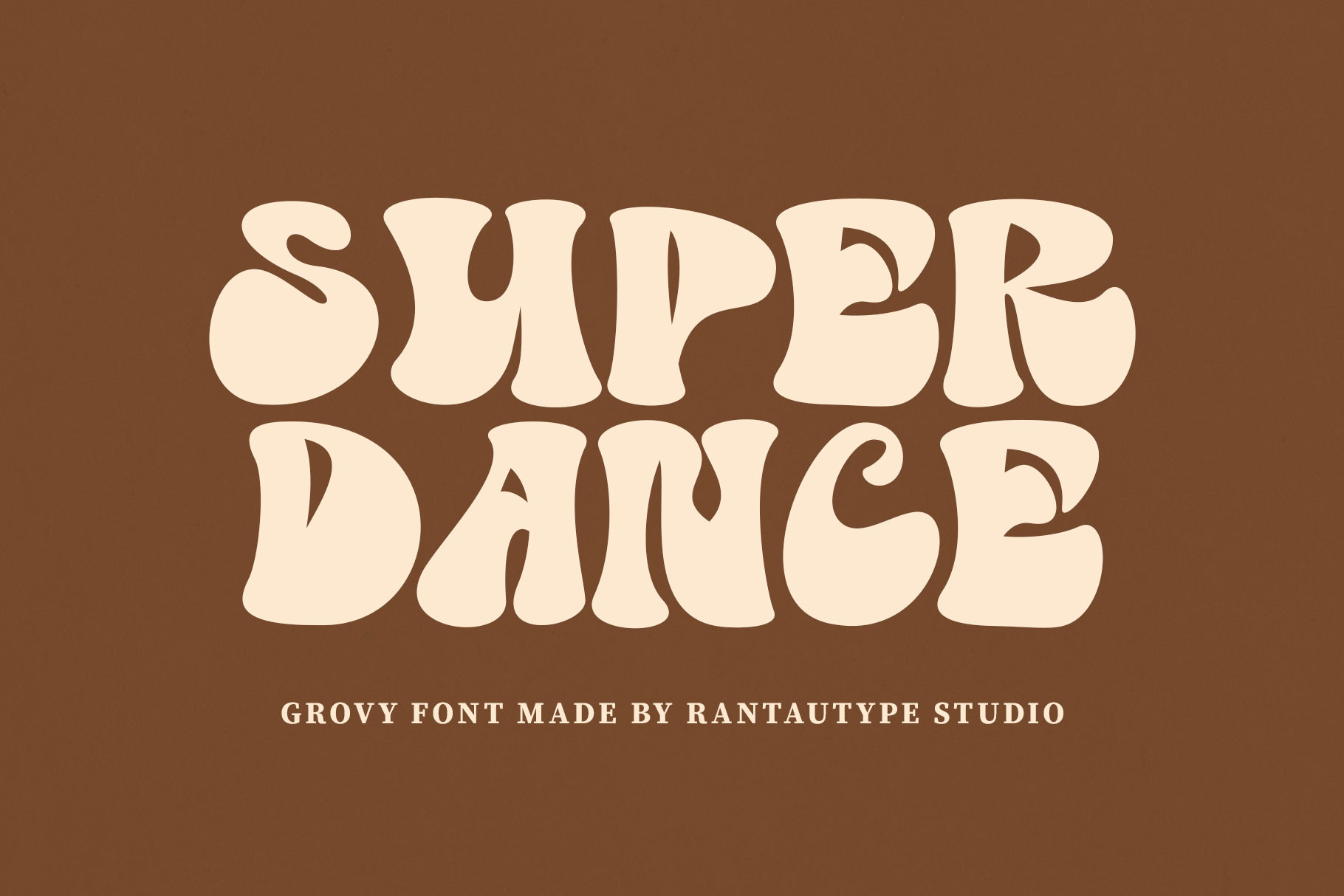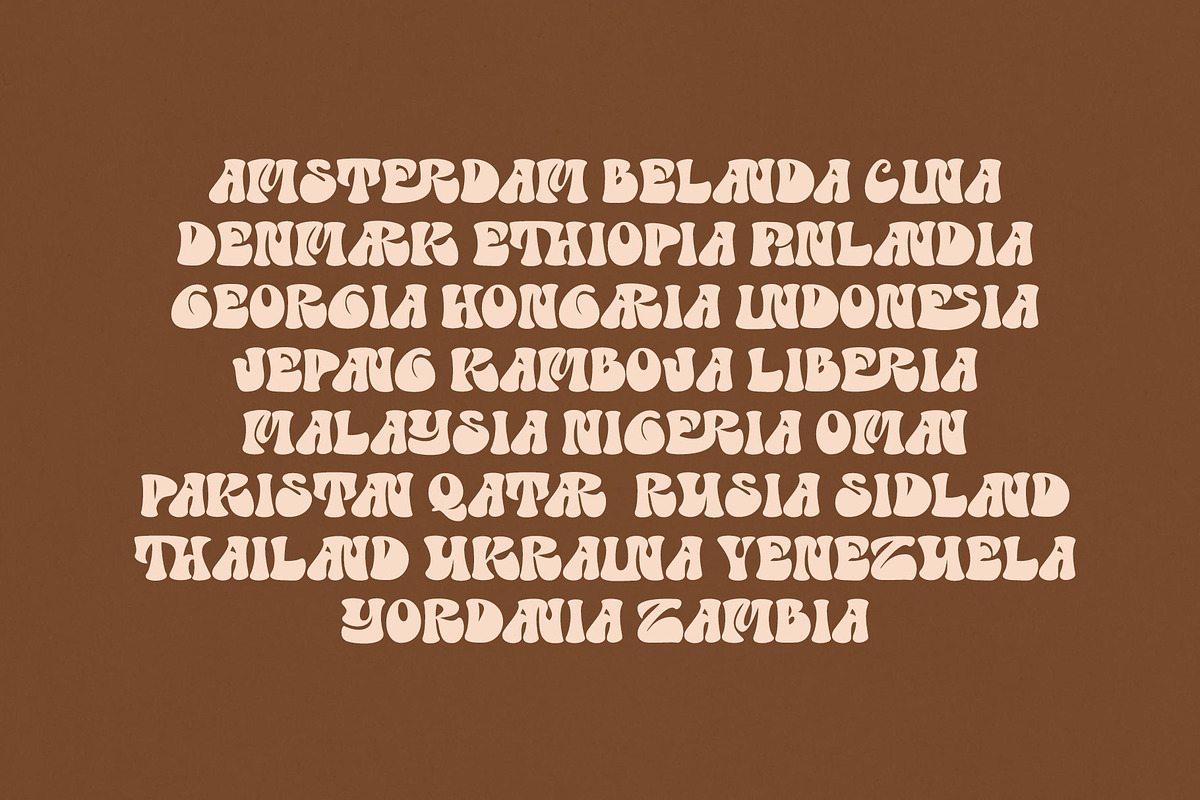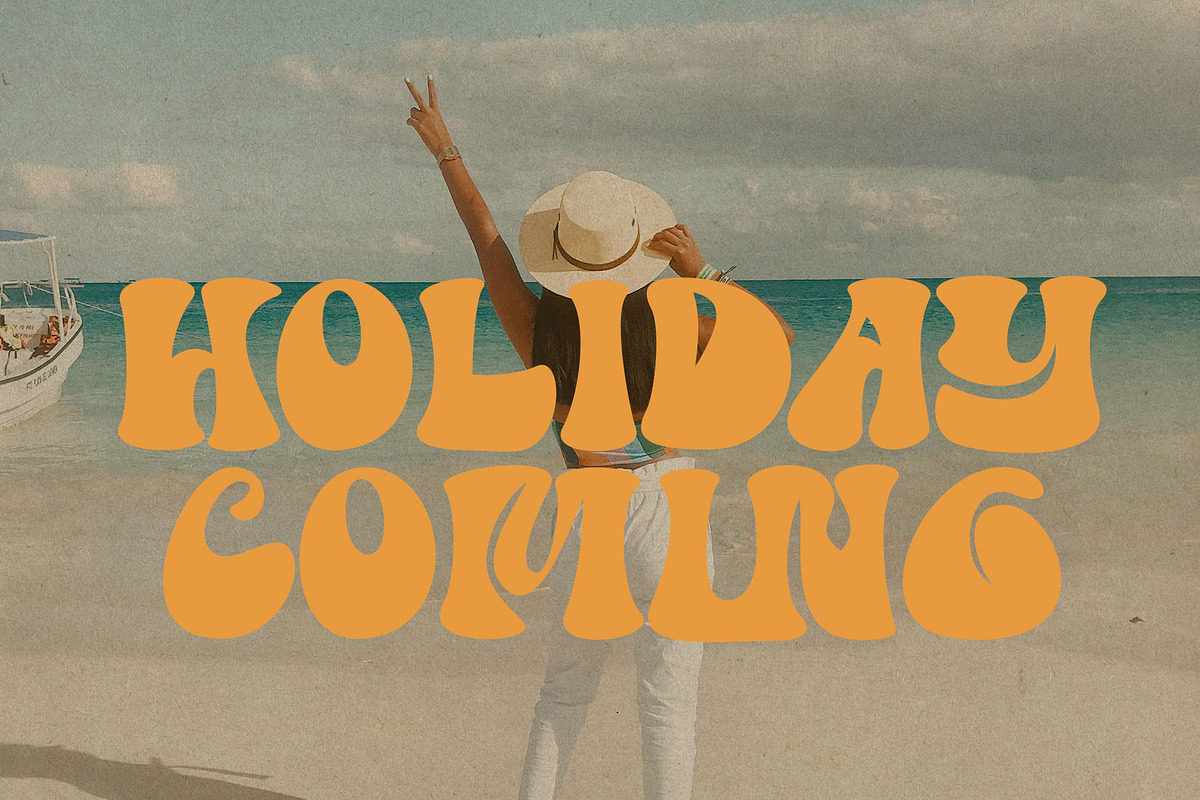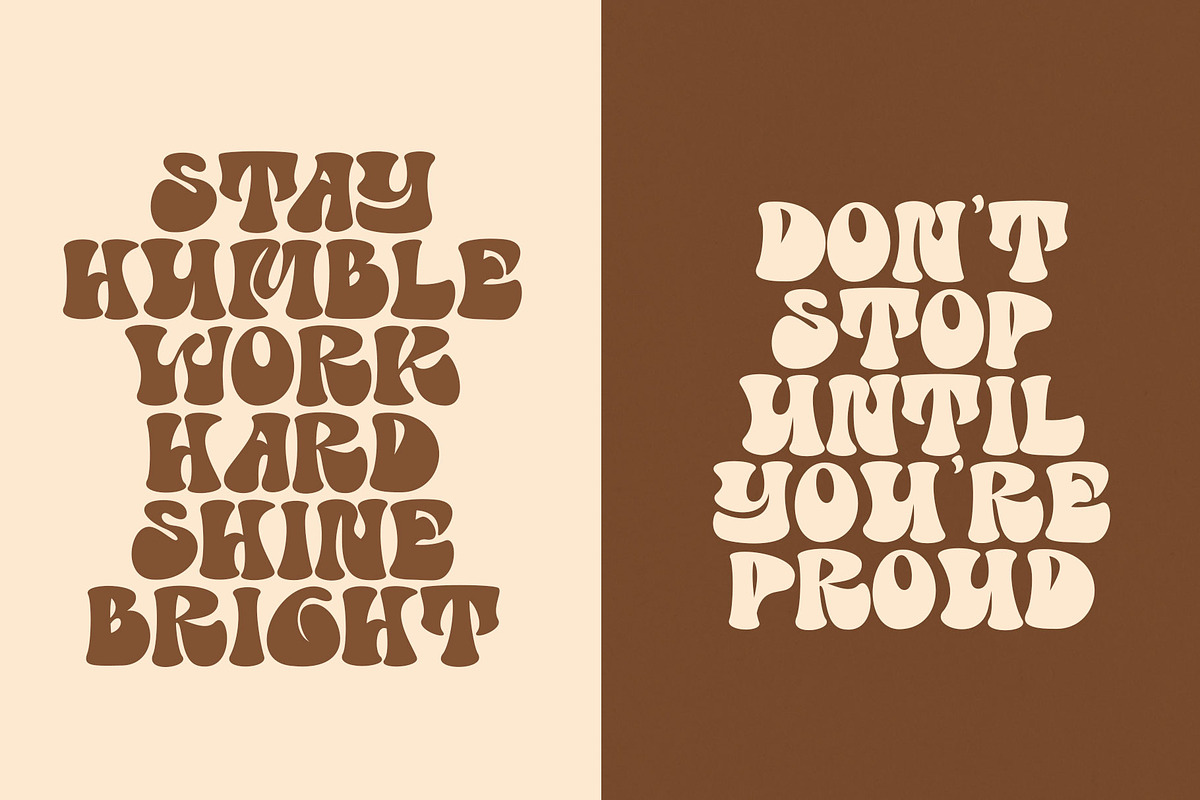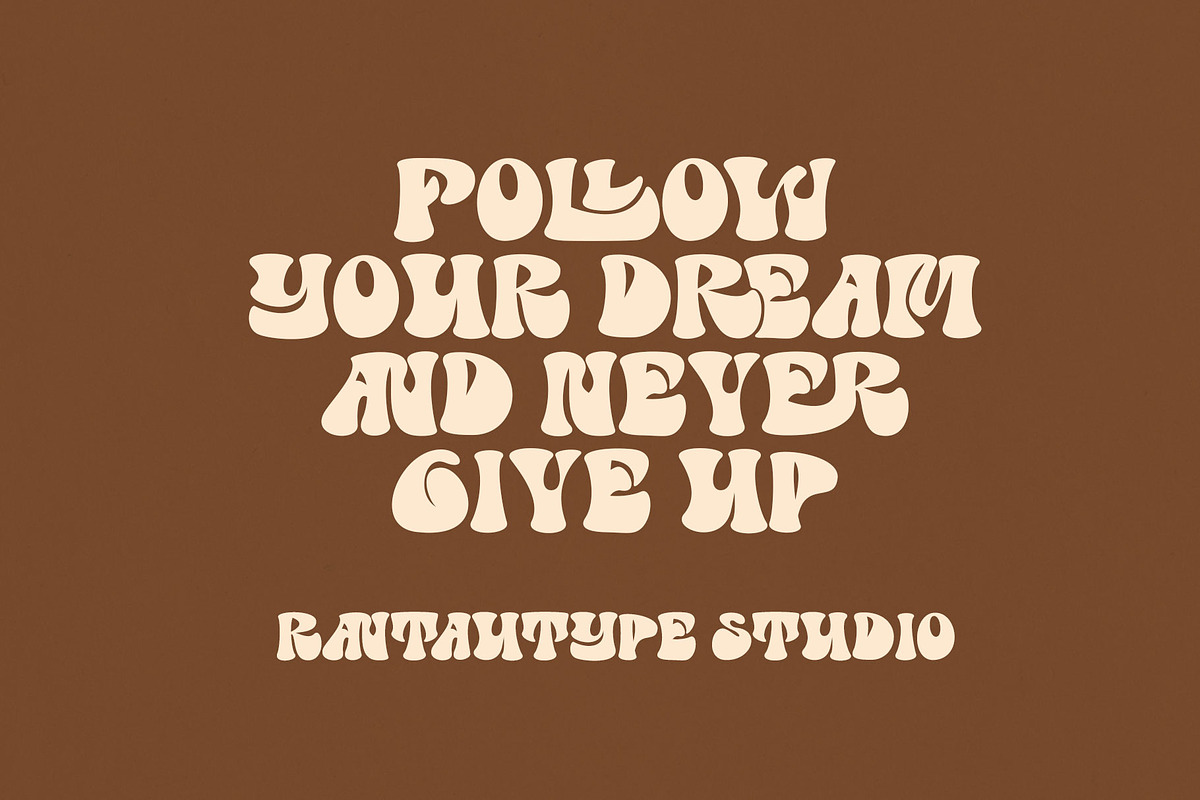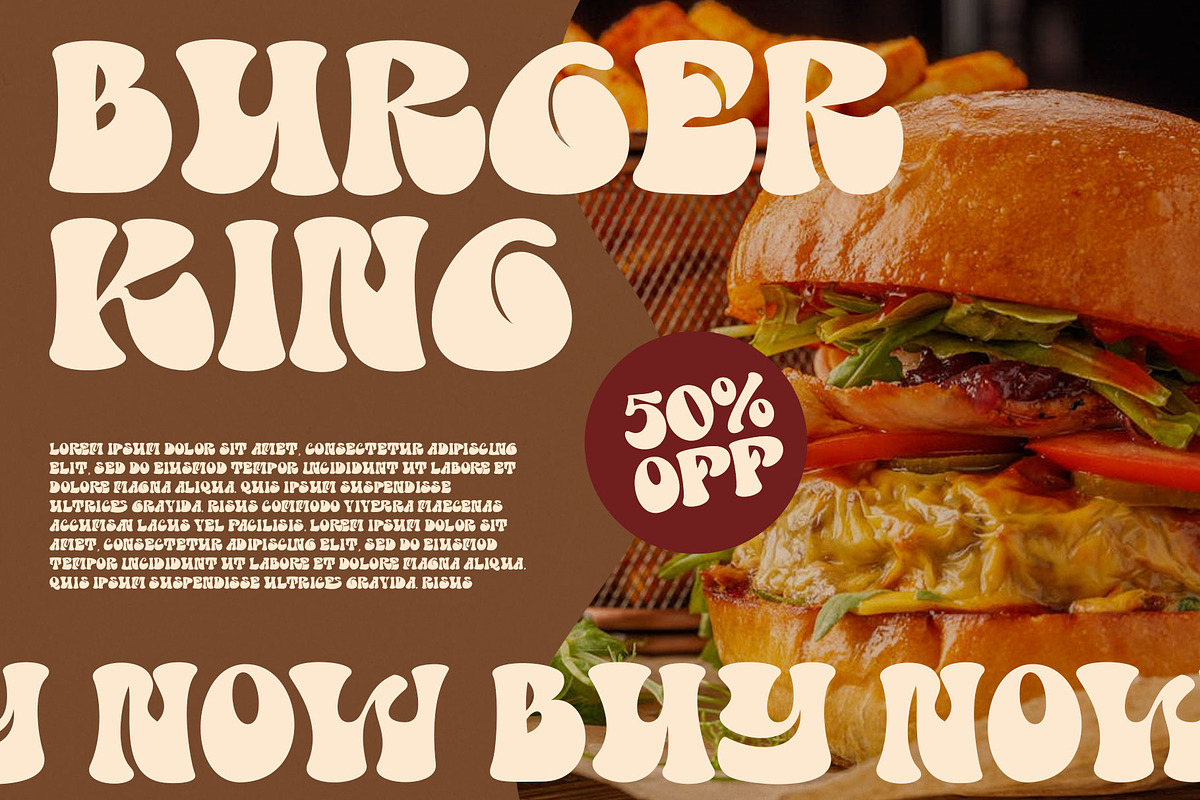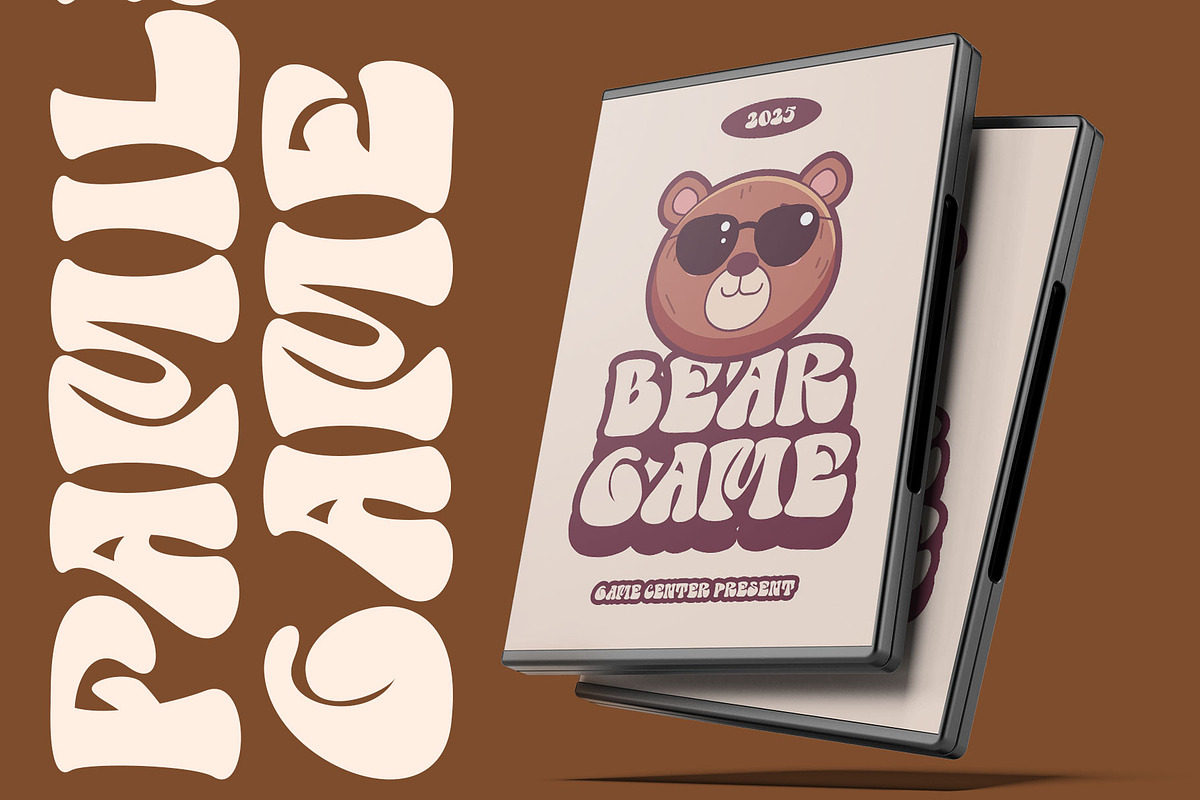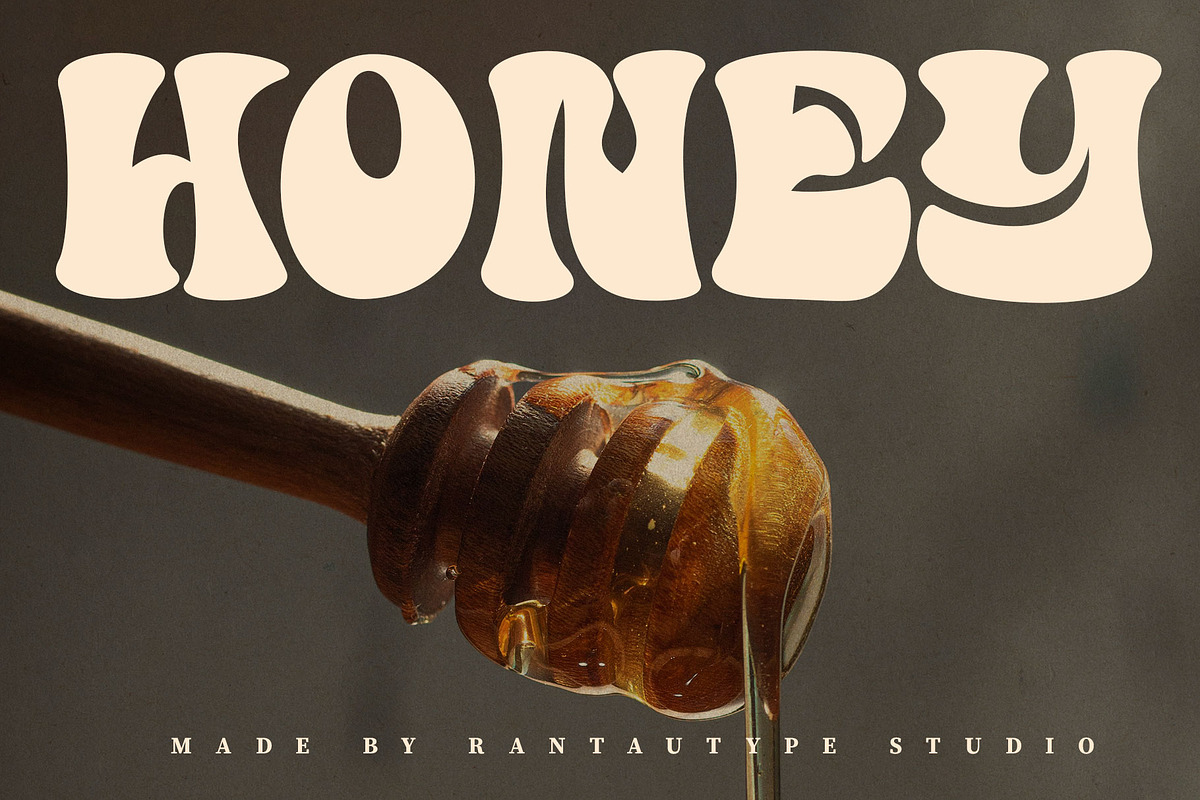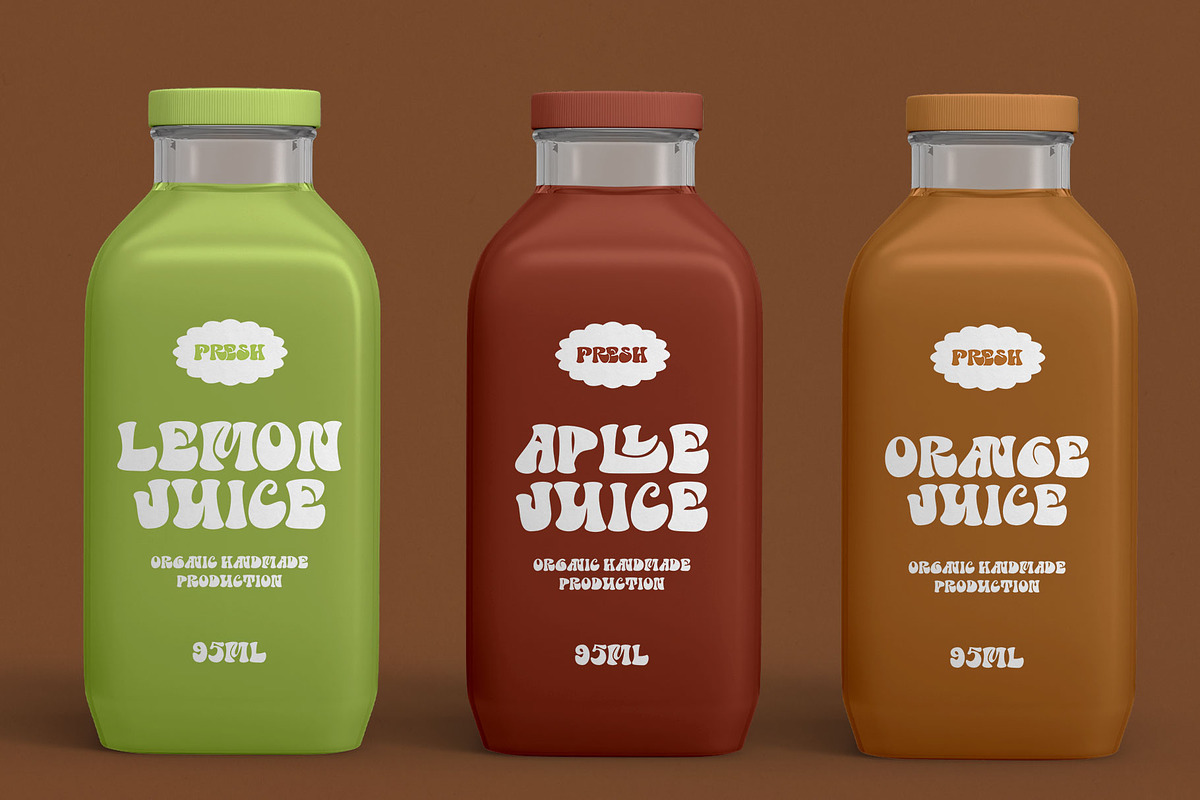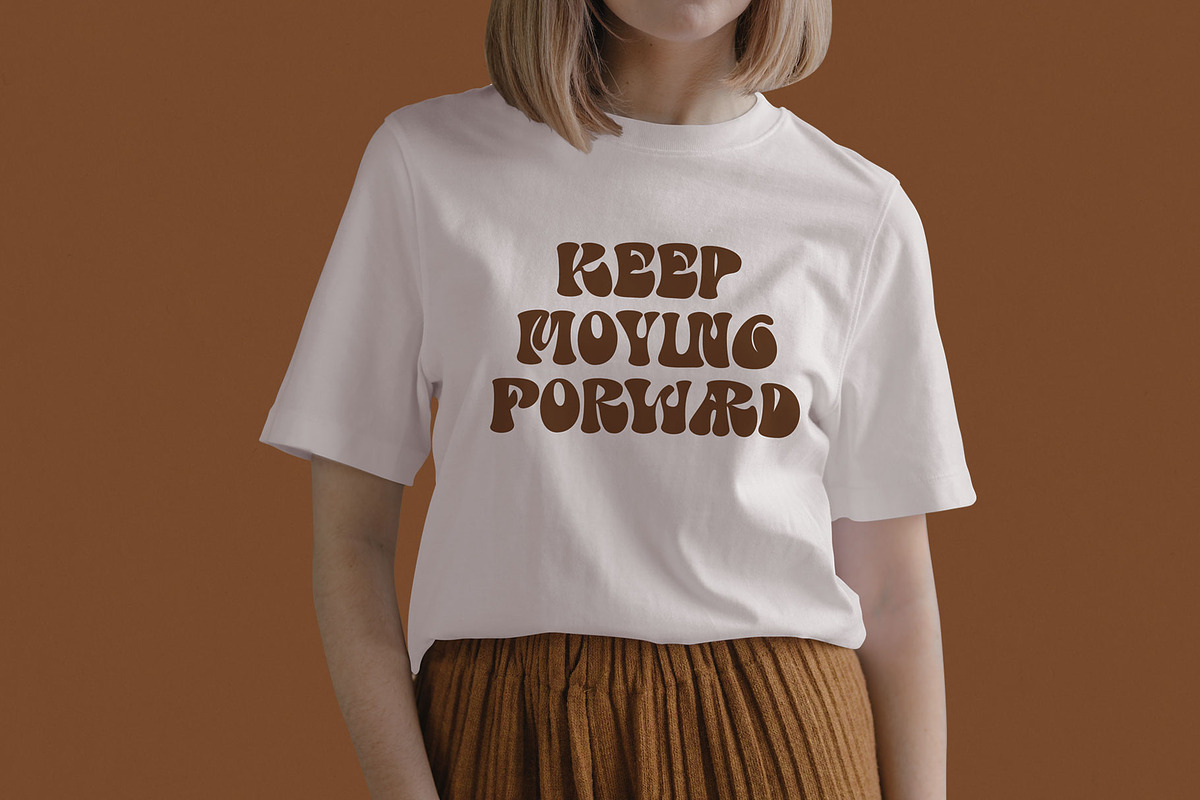
Super Dance Groovy Font
Super Dance is bubble font captures the free spirited energy of the retro era with a modern twist. Super Dance inspired by the funky art and vibrant culture of the 1970s, this font bursts with personality through its rounded, bubble like shapes and bold, rhythmic flow. Each letter feels soft yet expressive, filled with charm and attitude that brings a sense of fun and nostalgia to any design project.
Super dance is a perfectly choice for any creative endeavor, chic, lifestyle design such as logotype, advertisements, watermark on photography, stationery, branding project, display and magazine, invitation, corporate brand, product design, label, business project and many other project with fun touch.
- Alternate and ligature